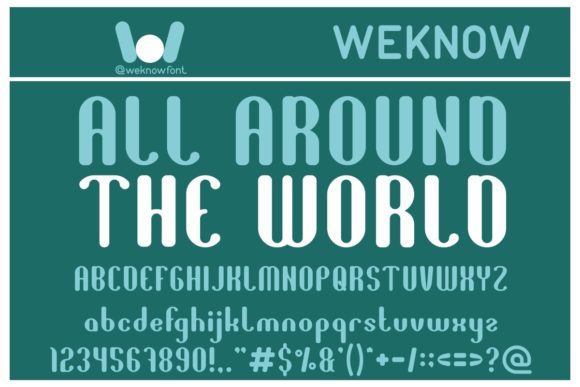
Discover the Ultimate Display Font: All Around the World
Are you tired of using the same old fonts in your designs? Look no further! Introducing All Around the World, a cool, techno-looking, and fun display font that’s perfect for making your posters, flyers, and prints stand out. With its unique and modern style, this font is sure to add a touch of excitement to any design project.
What Makes All Around the World Font So Special?
All Around the World font is a versatile and attention-grabbing display font that’s designed to make a statement. Its techno-inspired style gives it a futuristic and edgy look that’s perfect for designs that require a bit of attitude. Whether you’re creating a poster for a music festival, a flyer for a new product launch, or a print for a social media campaign, this font is sure to grab attention and leave a lasting impression.
One of the best things about All Around the World font is its endless possibilities. With its clean and modern design, you can use it for a wide range of projects, from:
• Posters and flyers for events and promotions
• Prints for social media campaigns and advertisements
• Logos and branding materials for businesses and products
• Signs and banners for events and exhibitions
• Packaging and labeling for products
The possibilities are truly endless, and with All Around the World font, you can let your creativity run wild and experiment with different designs and styles.
Why Choose All Around the World Font?
So, why choose All Around the World font over other display fonts? Here are just a few reasons:
• Unique Style: All Around the World font has a unique and modern style that’s sure to make your designs stand out.
• Versatility: This font is versatile and can be used for a wide range of projects and designs.
• Easy to Read: Despite its bold and edgy style, All Around the World font is easy to read and understand.
• High-Quality: This font is designed to high-quality standards, ensuring that it looks great in any design.
Tips for Using All Around the World Font
Here are a few tips for using All Around the World font in your designs:
• Use it as a statement font: All Around the World font is perfect for making a statement, so use it as a headline or title font to grab attention.
• Experiment with colors: This font looks great in bold and bright colors, so don’t be afraid to experiment and find the perfect color for your design.
• Pair it with other fonts: All Around the World font pairs well with other fonts, so try pairing it with a clean and simple font for a contrasting look.
All Around the World font is a cool, techno-looking, and fun display font that’s perfect for designers and crafters who want to add a touch of excitement to their designs. With its unique and modern style, versatility, and endless possibilities, this font is sure to become a favorite in your design arsenal. So why wait? Download All Around the World font today and start exploring its endless possibilities!